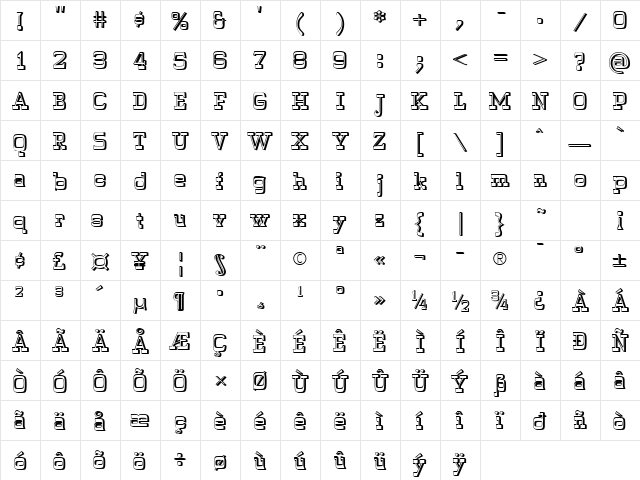
WyomingPastadShadowed Regular
Design Context for WyomingPastadShadowed
WyomingPastadShadowed is built around its visual character rather than neutral utility - its distinctive forms are designed to make an impression at display sizes.
Font Pairing: Pair with a clean neutral sans-serif for body copy to let WyomingPastadShadowed's character lead without overwhelming the composition.
Pro Tip: Use WyomingPastadShadowed exclusively at display sizes - it was designed to be seen, not read at length. Let a neutral companion handle body copy.